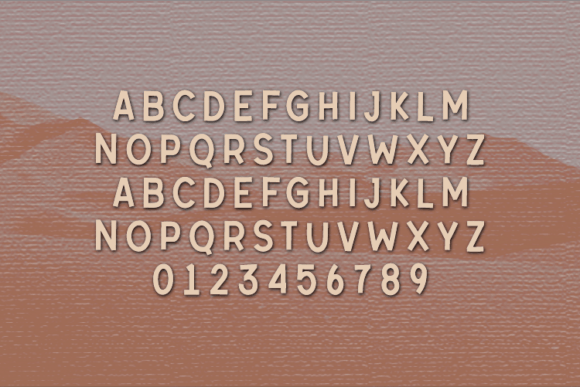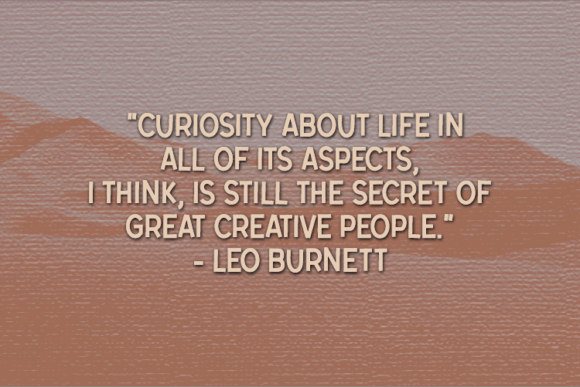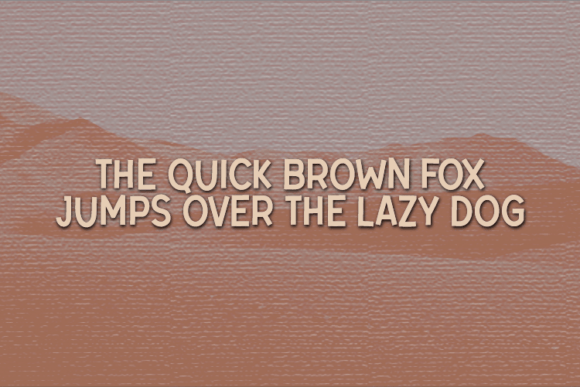
Introducing Blankids Font: The Ultimate Display Font for Creative Designs
Are you tired of using the same old fonts for your designs? Look no further! Blankids Font is an exciting and unique display font that’s perfect for adding a touch of personality to your quotes, notes, T-shirts, and more. With its incredibly versatile style, you’ll fall in love with the creative possibilities it offers.
What Makes Blankids Font So Special?
Blankids Font stands out from the crowd with its distinctive and eye-catching design. Its unique style is perfect for creating spectacular designs that grab attention. Whether you’re a designer, crafter, or DIY enthusiast, this font is sure to inspire you to create something amazing.
Blankids Font is an extremely versatile font that can be used for a wide range of design projects. Here are just a few ideas to get you started:
- Quotes and Inspirational Sayings: Use Blankids Font to create stunning quote graphics that will motivate and inspire your audience.
- Notes and Journaling: Add a personal touch to your notes and journal entries with this beautiful font.
- T-Shirts and Merchandise: Create eye-catching designs for T-shirts, hoodies, and other merchandise that will make your brand stand out.
- Signs and Posters: Use Blankids Font to create attention-grabbing signs and posters for events, promotions, or advertising.
Key Features of Blankids Font
Here are some of the key features that make Blankids Font so special:
- Unique and Eye-Catching Design: The font’s distinctive style is sure to grab attention and make your designs stand out.
- Highly Versatile: Blankids Font can be used for a wide range of design projects, from quotes and notes to T-shirts and merchandise.
- Easy to Read: Despite its unique design, Blankids Font is easy to read and understand, making it perfect for quotes, notes, and other text-based designs.
Tips for Using Blankids Font
Here are some tips for getting the most out of Blankids Font:
- Experiment with Different Sizes: Try using Blankids Font in different sizes to create visual interest and hierarchy in your designs.
- Play with Colors: Use Blankids Font with different colors to add personality and style to your designs.
- Combine with Other Fonts: Try pairing Blankids Font with other fonts to create a unique and eye-catching design.
In conclusion, Blankids Font is an exciting and unique display font that’s perfect for designers, crafters, and DIY enthusiasts. With its incredibly versatile style and range of design possibilities, it’s sure to inspire you to create something amazing. So why wait? Fall in love with Blankids Font and start creating spectacular designs today!